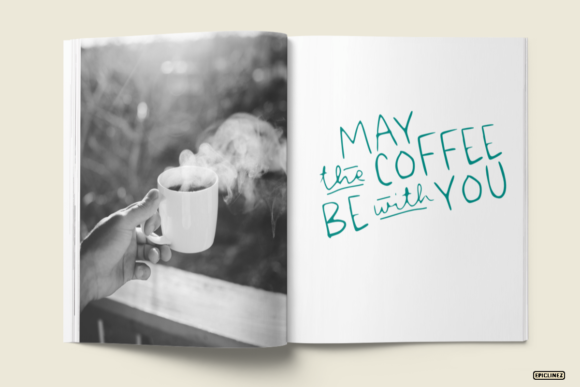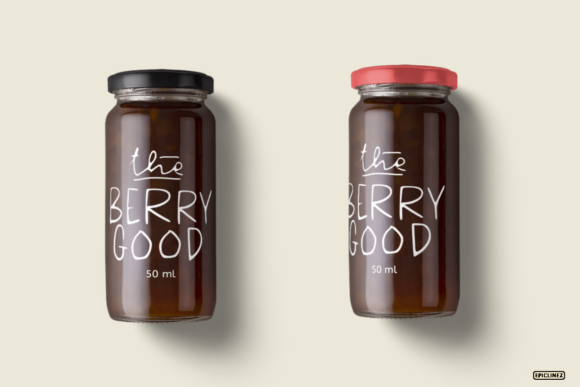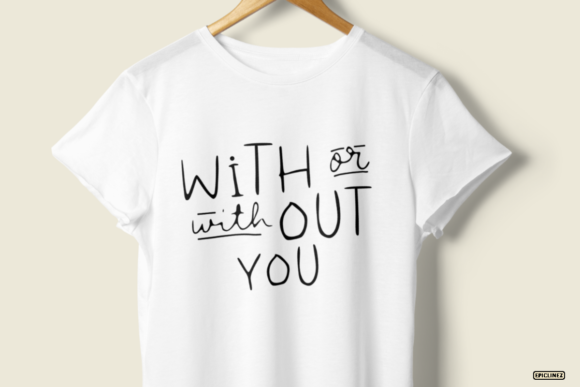
Coffee & Friends Font: The Perfect Companion for Your Design Journey
Are you a designer, crafter, or DIY enthusiast looking for a font that can add a personal touch to your projects? Look no further than the Coffee & Friends Font! This sweet and friendly handwritten font is designed to bring a unique and natural style to your designs, making it incredibly versatile and adaptable to a wide range of creative endeavors.
The Charm of Coffee & Friends Font
Coffee & Friends Font is a beautiful, handcrafted font that exudes warmth and friendliness. Its natural and unique style makes it perfect for adding a personal touch to your designs, whether you’re creating invitations, greeting cards, posters, or social media graphics. The font’s sweet and approachable vibe is sure to capture the hearts of your audience and leave a lasting impression.
The beauty of Coffee & Friends Font lies in its incredible versatility. With this font, the only limit is your imagination! You can use it to create a wide range of designs, from:
- Invitations and greeting cards for special occasions
- Posters and flyers for events and promotions
- Social media graphics and quotes
- Branding and packaging materials
- DIY crafts and scrapbooking projects
Whether you’re a professional designer or a crafty DIY enthusiast, Coffee & Friends Font is the perfect companion for your creative journey.
What Makes Coffee & Friends Font Special?
So, what sets Coffee & Friends Font apart from other fonts? Here are a few reasons why this font is a cut above the rest:
- Unique and handcrafted design: Each letter and character is carefully crafted to create a truly unique and natural look.
- Natural and friendly vibe: The font’s warm and approachable style makes it perfect for designs that require a personal touch.
- Highly versatile: Use it for a wide range of designs, from formal to informal, and from digital to print.
- Easy to read: The font is clear and legible, making it perfect for body text and headlines.
How to Use Coffee & Friends Font
| Font Name | Coffee & Friends Font |
| Author | Epiclinez |
In conclusion, Coffee & Friends Font is a sweet and friendly handwritten font that is perfect for designers, crafters, and DIY enthusiasts. Its natural and unique style makes it incredibly versatile and adaptable to a wide range of creative endeavors. With its endless design possibilities, ease of use, and charming vibe, Coffee & Friends Font is sure to become your new favorite companion for all your design needs.